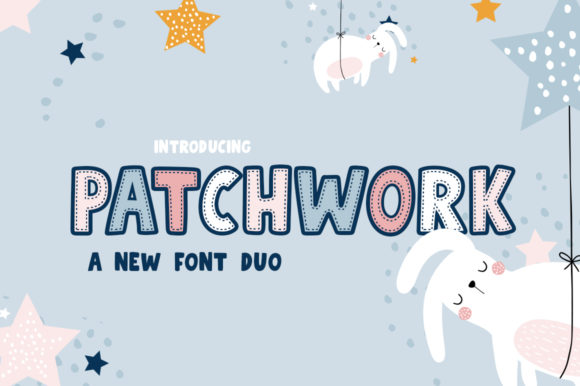
Introducing the mesmerizing Patchwork Duo Font collection by Salt and Pepper Fonts! Brace yourself for a font experience like no other, where creativity meets versatility in the most captivating way. This display font family will leave you breathless with its unique and innovative design, expertly crafted to elevate your projects to new heights of visual excellence.
Patchwork Duo Font is not your ordinary font. It's a masterpiece carefully created to ignite emotions and spark inspiration. With its two remarkable variations, the "background" and the "stitched" font, you have the power to create stunning designs that will leave a lasting impression. Let's explore the endless possibilities this font collection has to offer!
The "background" version of Patchwork Duo Font is a chunky and bold font that demands attention. Its captivating presence adds depth and texture to your designs, making them stand out from the crowd. Whether you're designing a poster, logo, or social media graphics, this font will instantly captivate your audience and convey your message with impact.
But that's not all! When you layer the "stitched" font on top of the "background" version, magic happens. The combination creates a perfect patchwork effect, reminiscent of handcrafted artistry. It's as if your designs have come to life, telling a captivating story with every stitch. Your audience won't be able to resist the charm and uniqueness of this font duo.
Imagine the possibilities of using Patchwork Duo Font for branding projects, packaging designs, or even heartfelt invitations. Its versatility allows you to effortlessly adapt it to any style or theme, making it a must-have for any designer or creative enthusiast. Let your imagination run wild as you explore the countless ways this font can elevate your projects.
Created by Salt and Pepper Fonts, Patchwork Duo Font is a testament to their unparalleled expertise in crafting fonts that evoke emotion and create memorable experiences. They understand the power of visual storytelling and have poured their heart and soul into this font collection, ensuring that each character is meticulously designed to perfection.